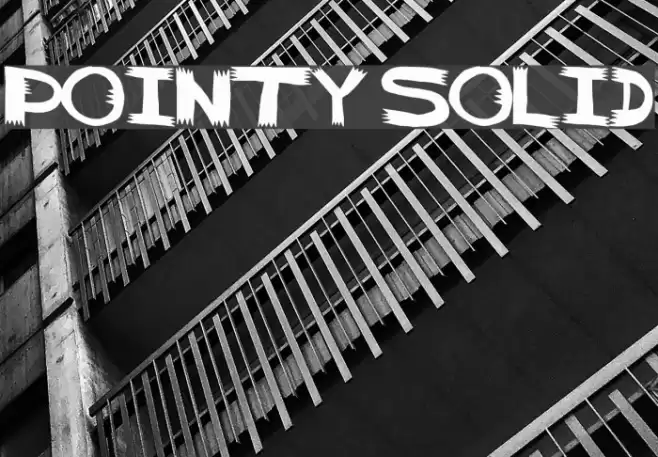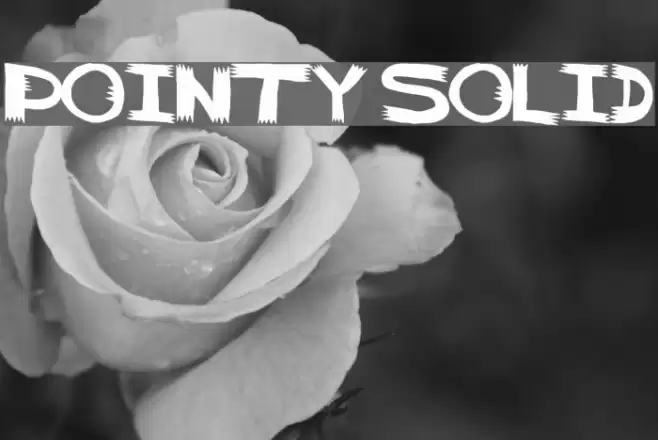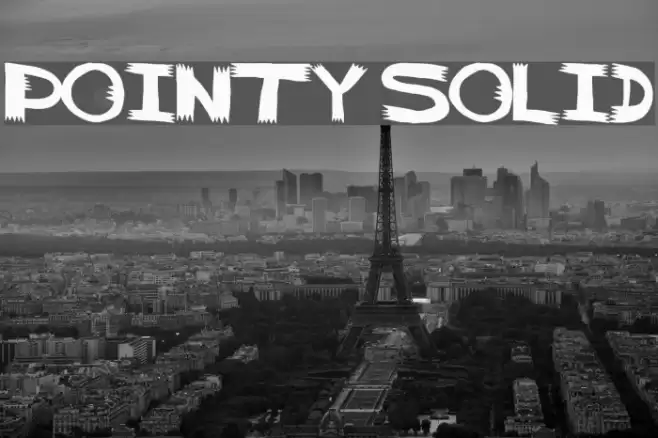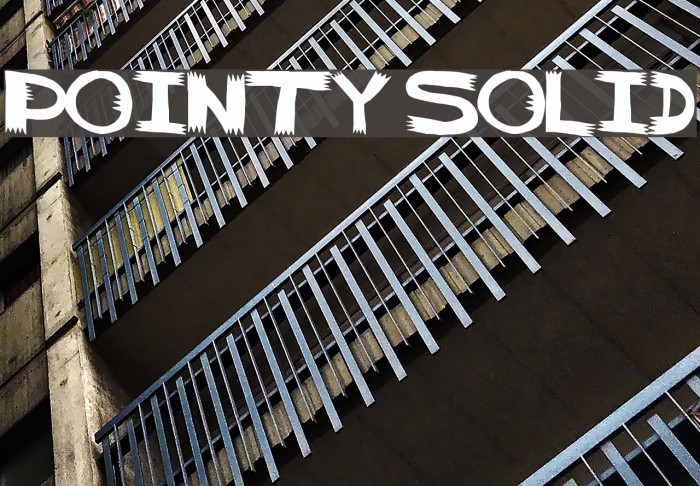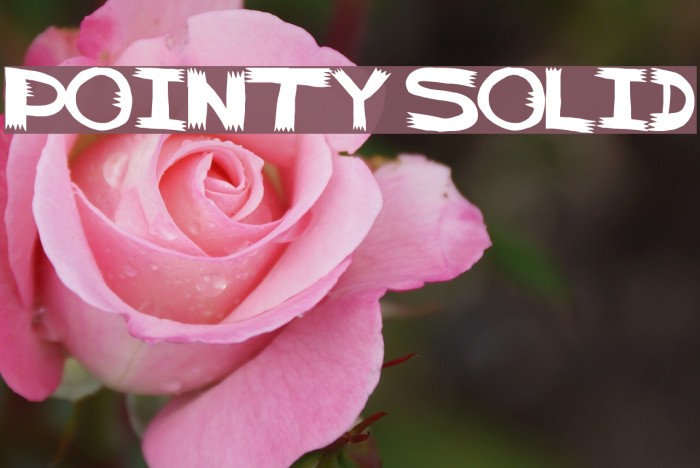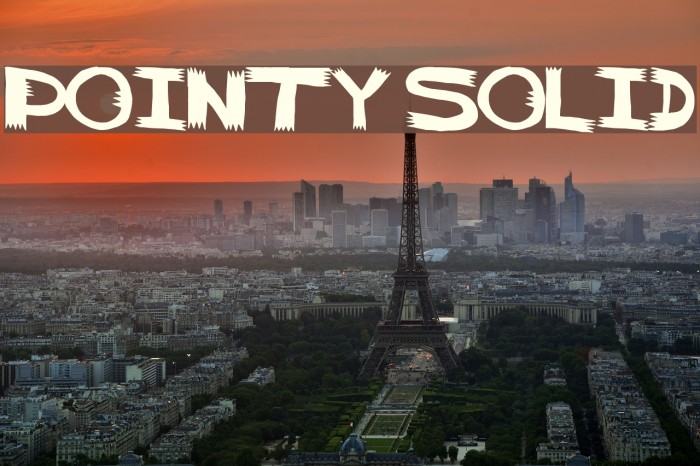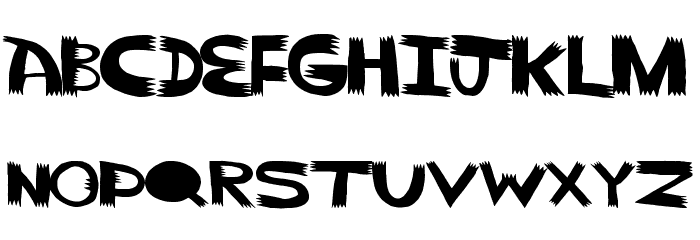
pointy solid Font
pointy solid Description
This font features a bold and dynamic design with sharp, jagged edges that give it a striking and aggressive appearance. The characters are heavily stylized, with a unique, edgy look that makes them stand out. The uppercase letters are particularly prominent, with exaggerated points and angles that create a sense of movement and energy. This font is ideal for projects that require a bold statement or a sense of urgency. Its distinctive style is perfect for eye-catching headlines, posters, or branding materials that aim to capture attention and convey a strong message.
A bold, jagged font with sharp edges and a dynamic, aggressive style from Crazy fonts.
- Proposed Projects: Ideal for posters, headlines, branding, and any project needing a bold, attention-grabbing font.
- Overall Style: Modern, Decorative
- Use Case: Headlines, Posters, Branding